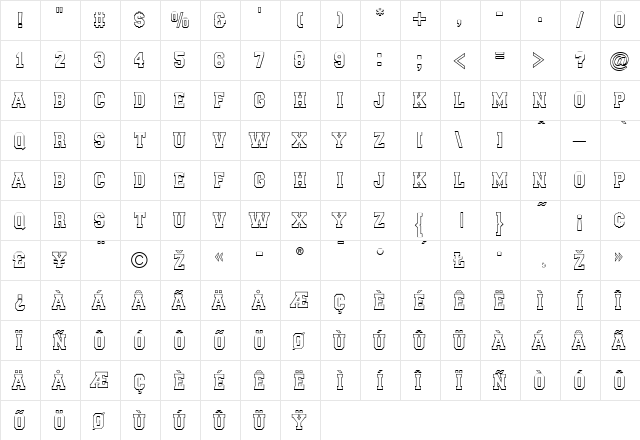
SportsJersey Regular
Design Context for SportsJersey Typeface
SportsJersey has the bold swagger of sports branding: strong, assertive letterforms designed to dominate headlines and jerseys alike.
A natural choice for gym brands, fantasy sports, jersey lettering, and action-driven headlines.
Pro Tip: Use SportsJersey in all-caps headlines where its athletic energy can fully express itself. Pair with a solid, simple sans for supporting text.